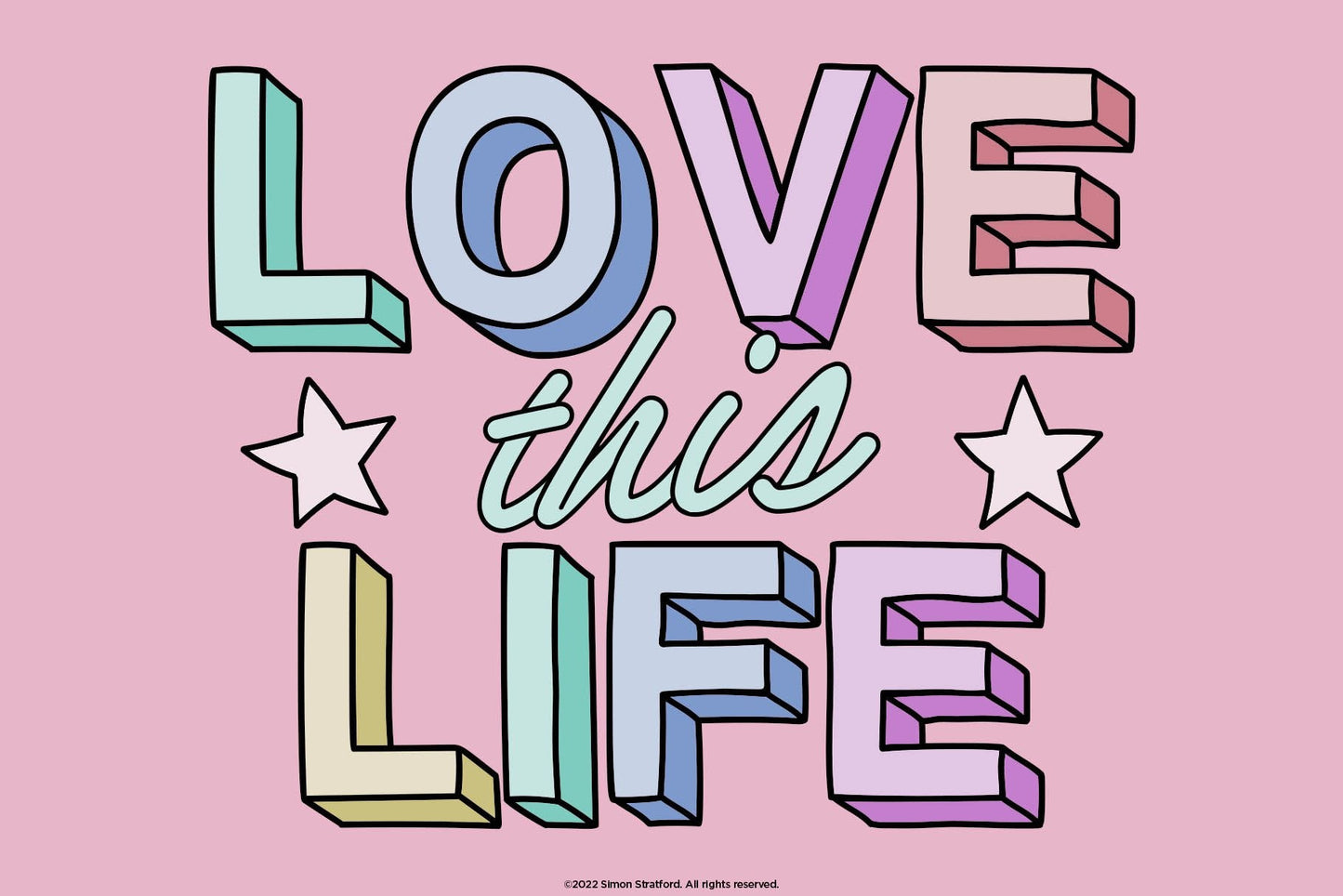
Love this life font by Simon Stratford
Love this life font
About Love this life font
Love this life display font is a quirky OpenType SVG font that's bursting with life and colour. It really draws attention to its slightly wobbly, chunky outlines—giving it a charming, bold appearance.
It creates the illusion of three dimensions on a flat surface. The letters appear to pop off the page, giving it depth and dimension but with a bold black outline.
A modern font duo
Combine that with the Love this life script font and you have the perfect contemporary font duo—You can use them together or just on their own.
The main font features five different colours: Red, Green, Yellow, Blue and Purple. You can mix and match the colours to get a cool colour effect or just use them on their own.
All the colour is built into the font, so you don't need to mess about with paths and fill colours.
Love this life font usage
Love this life is playful and would be perfect for large headlines, posters, birthday cards, t-shirts, branding and your social media posts.
If love this life were a celebrity
It would be Katy Perry, and it would embody a vibrant and playful spirit, much like Katy Perry's colourful and energetic performances. Just as Katy Perry's music and style exude a sense of positivity and self-expression, this font would bring a lively and dynamic element to your designs.